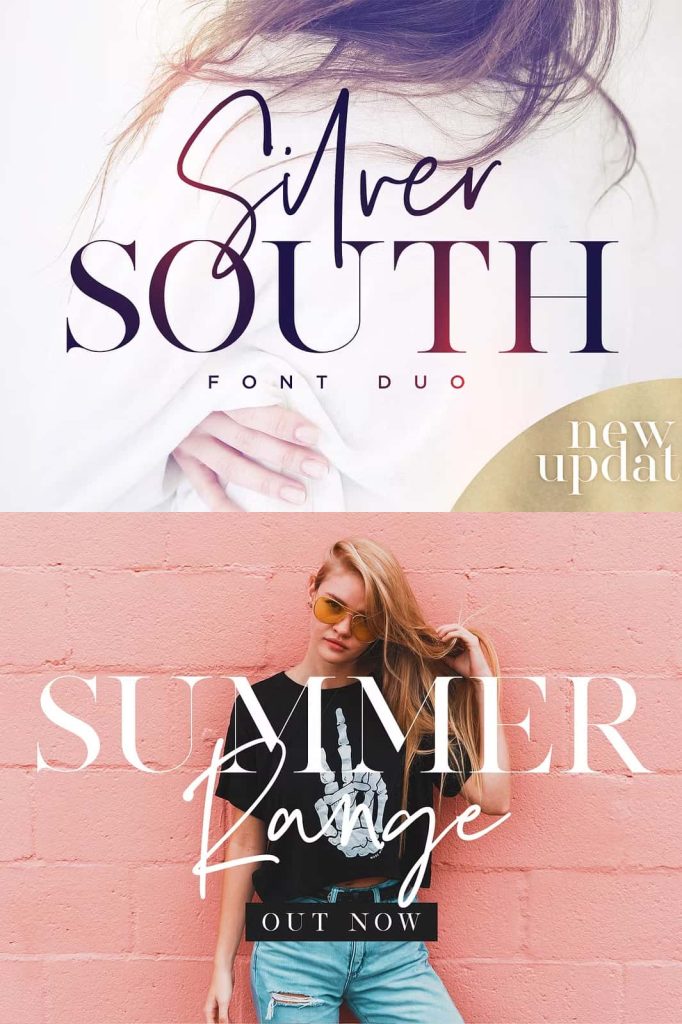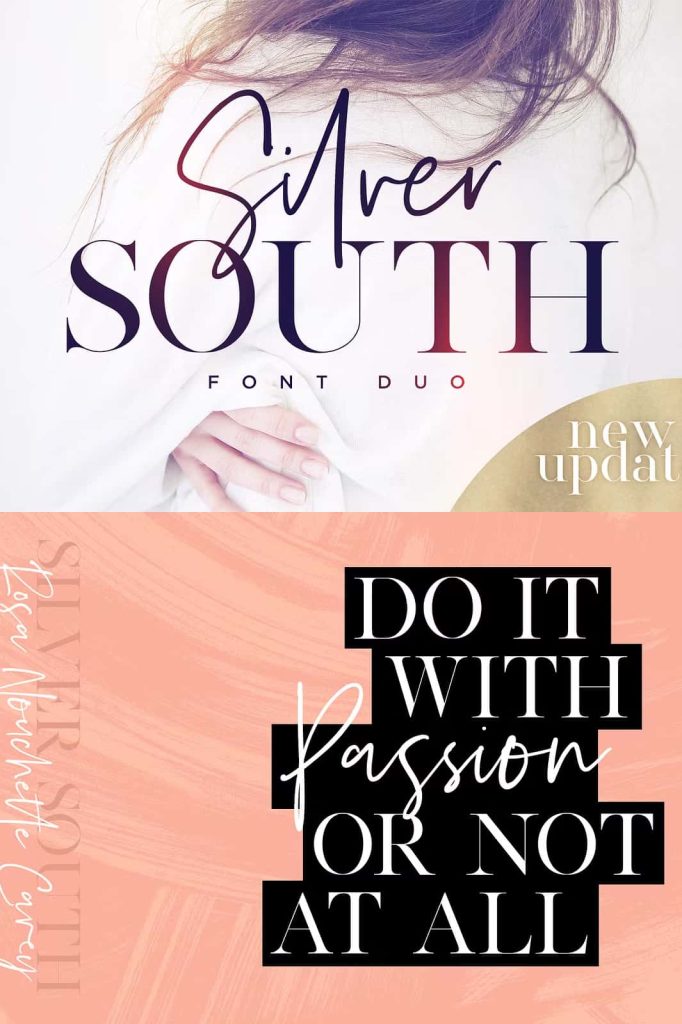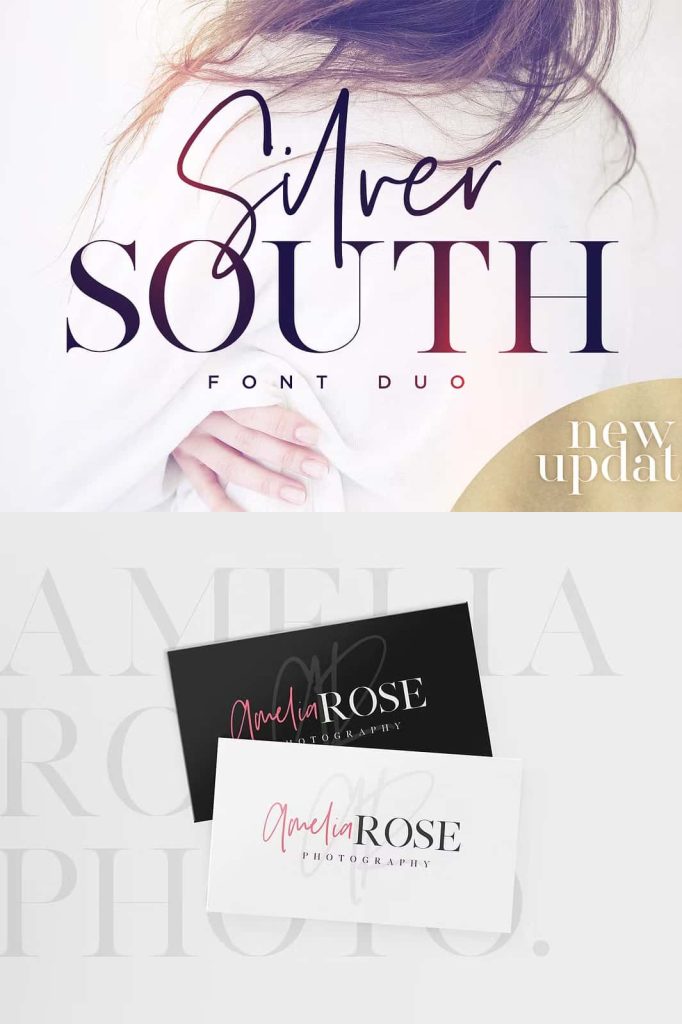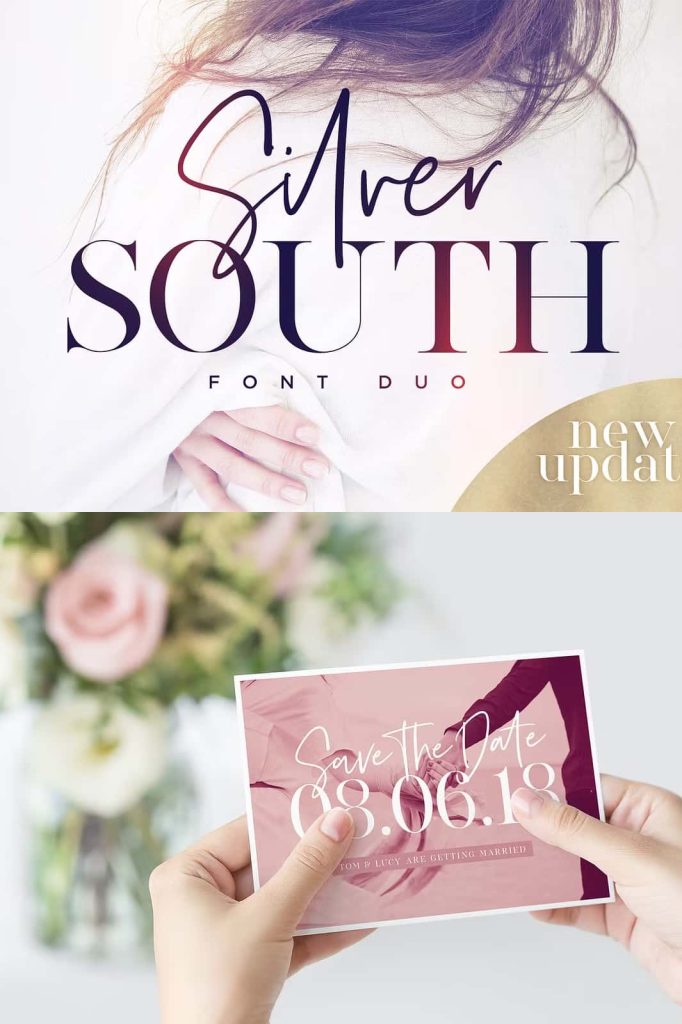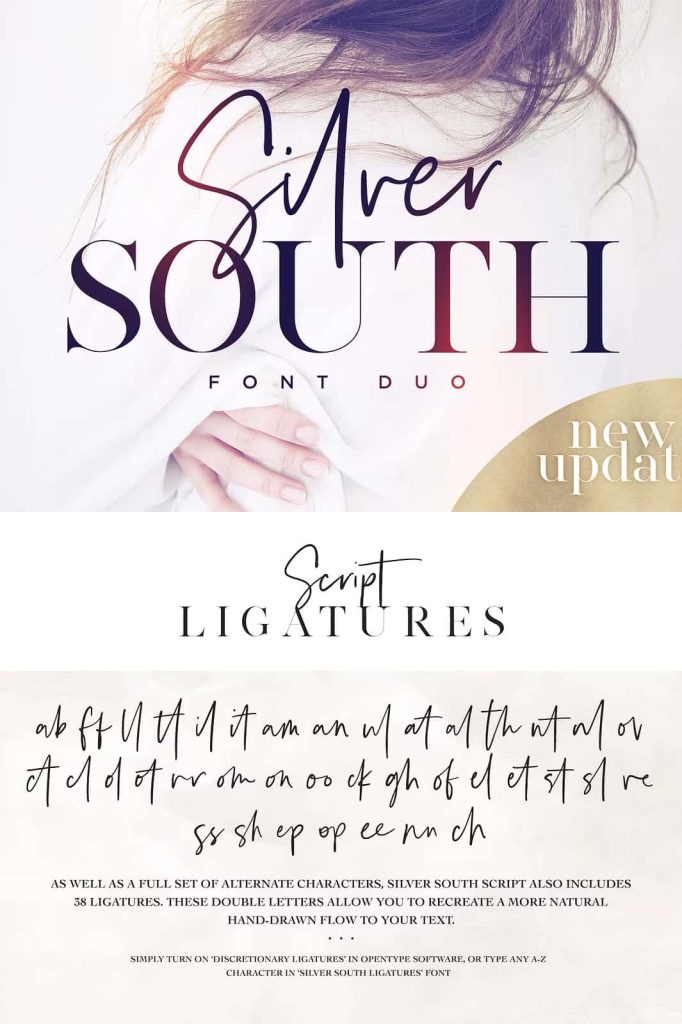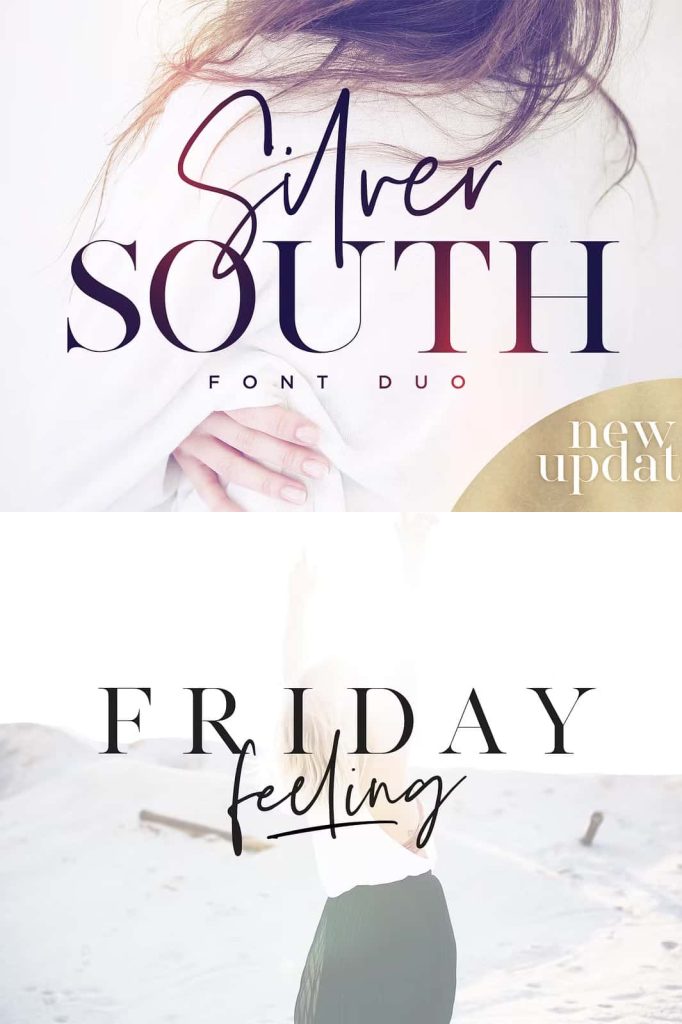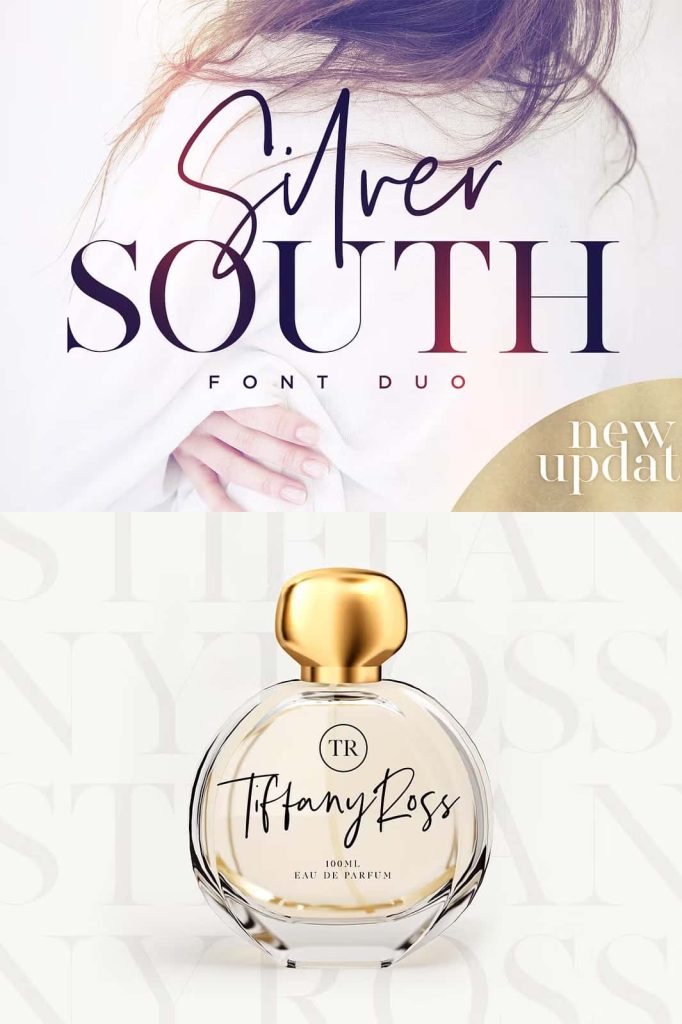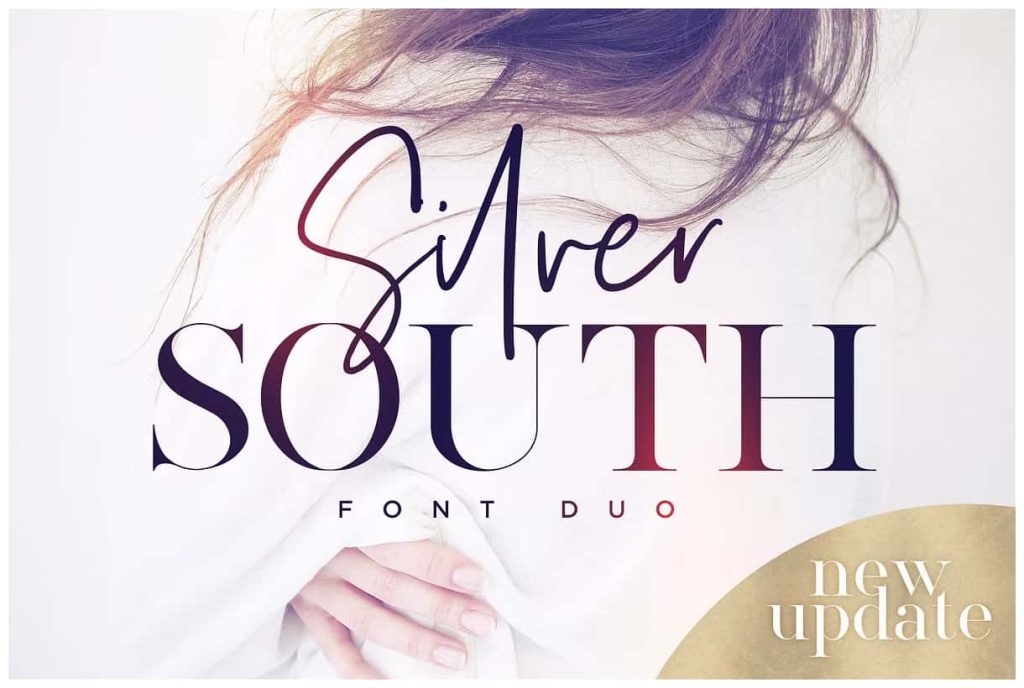
Silver South Font Duo (New Update)leastedJuly 3, 2025Fonts Introducing the Silver South Font Duo, a classy, contemporary pair of script and serif fonts. Download